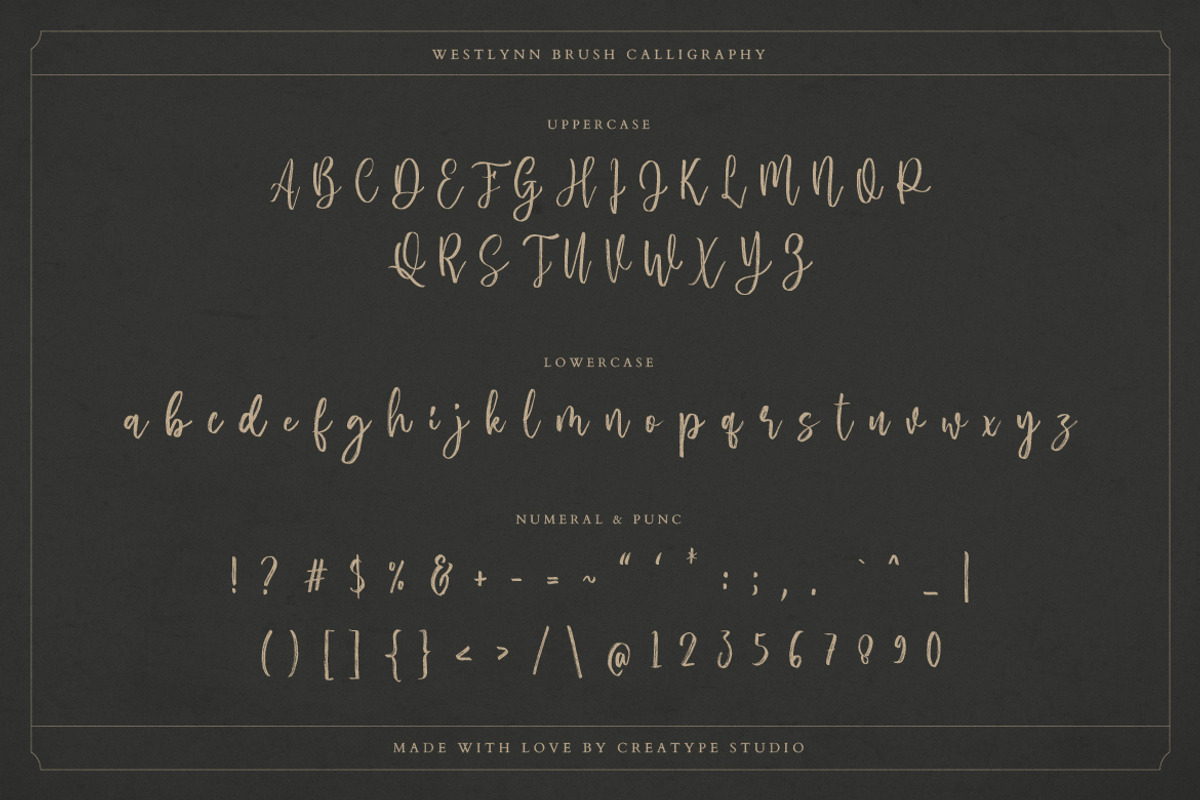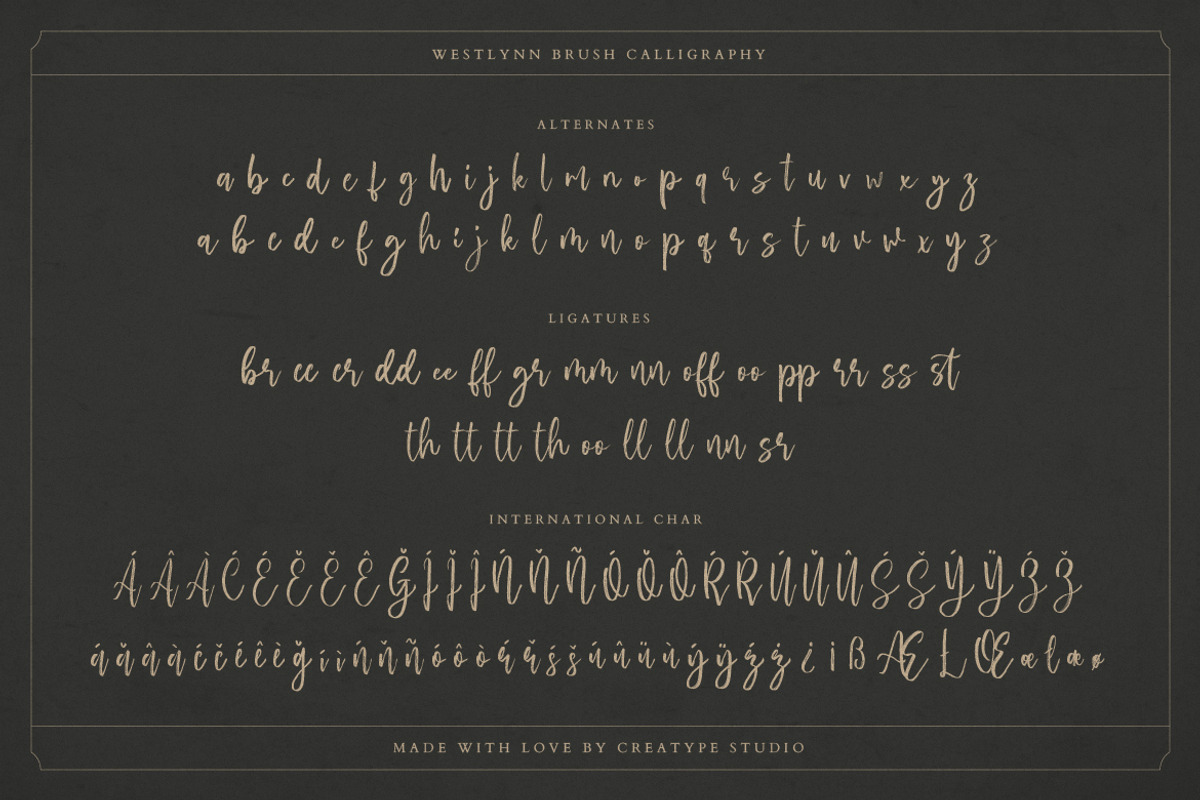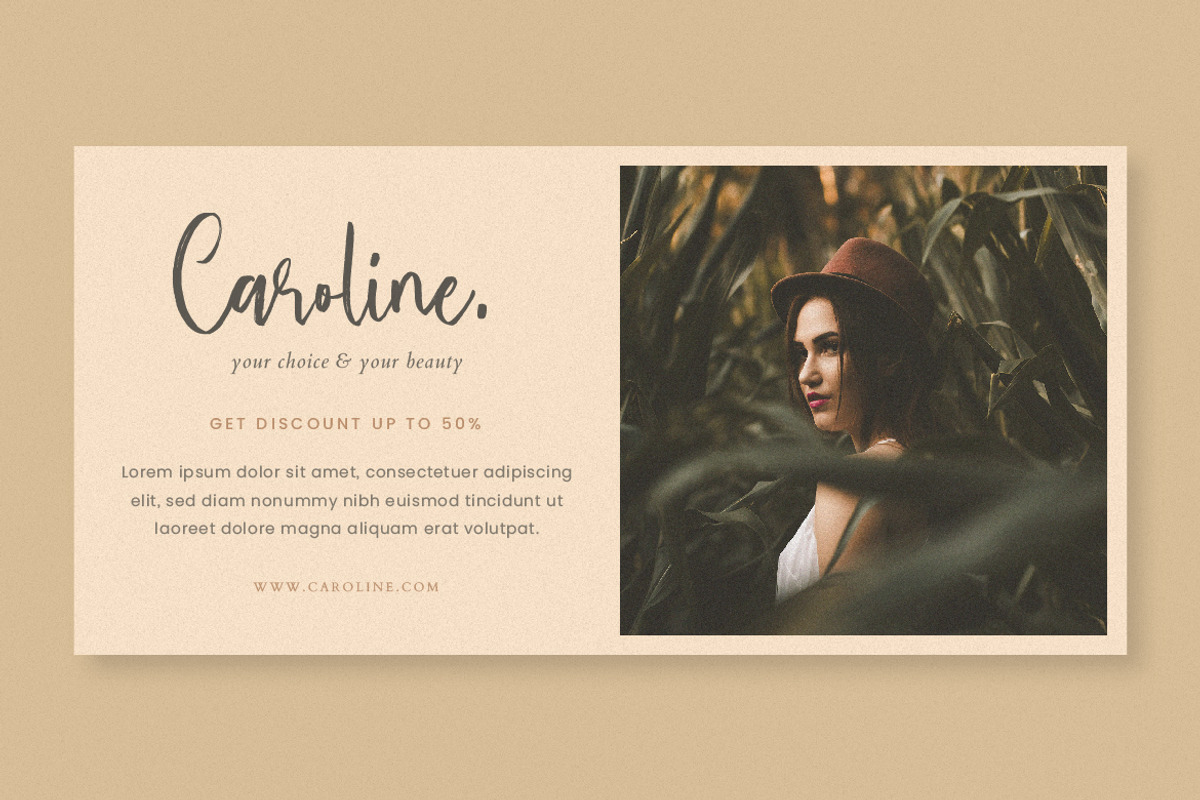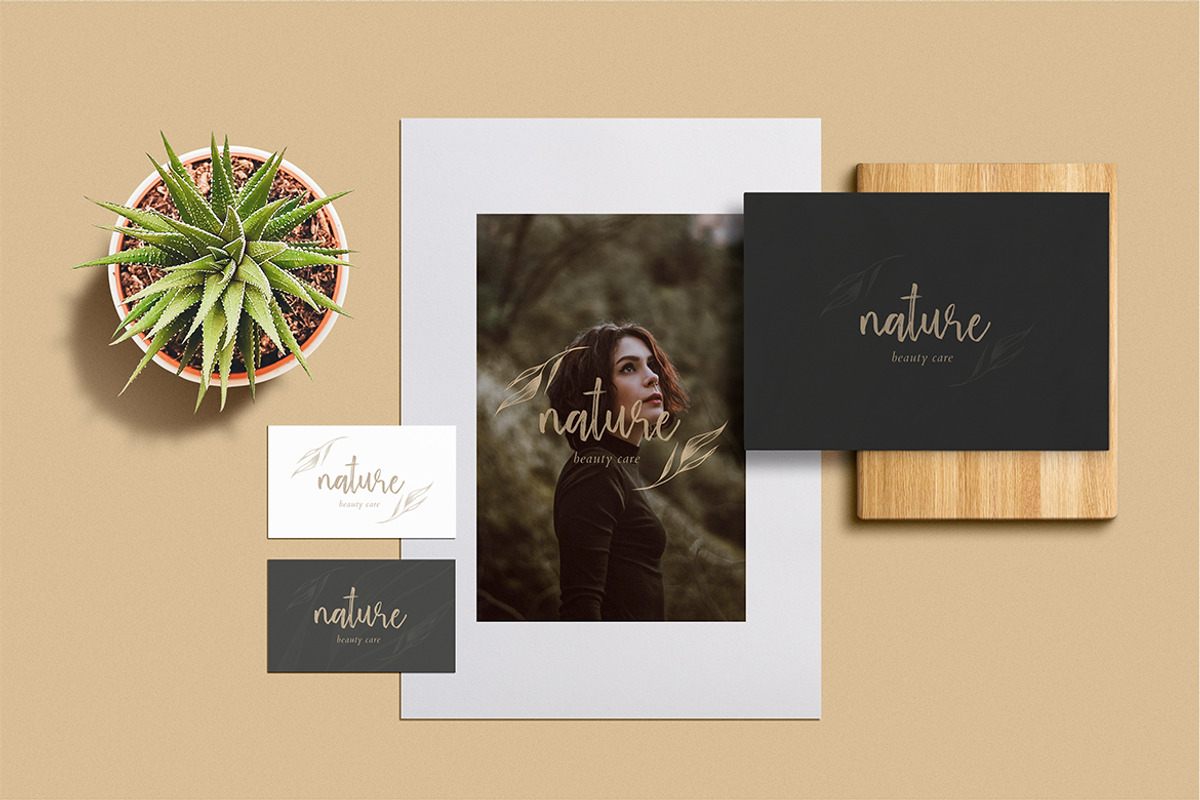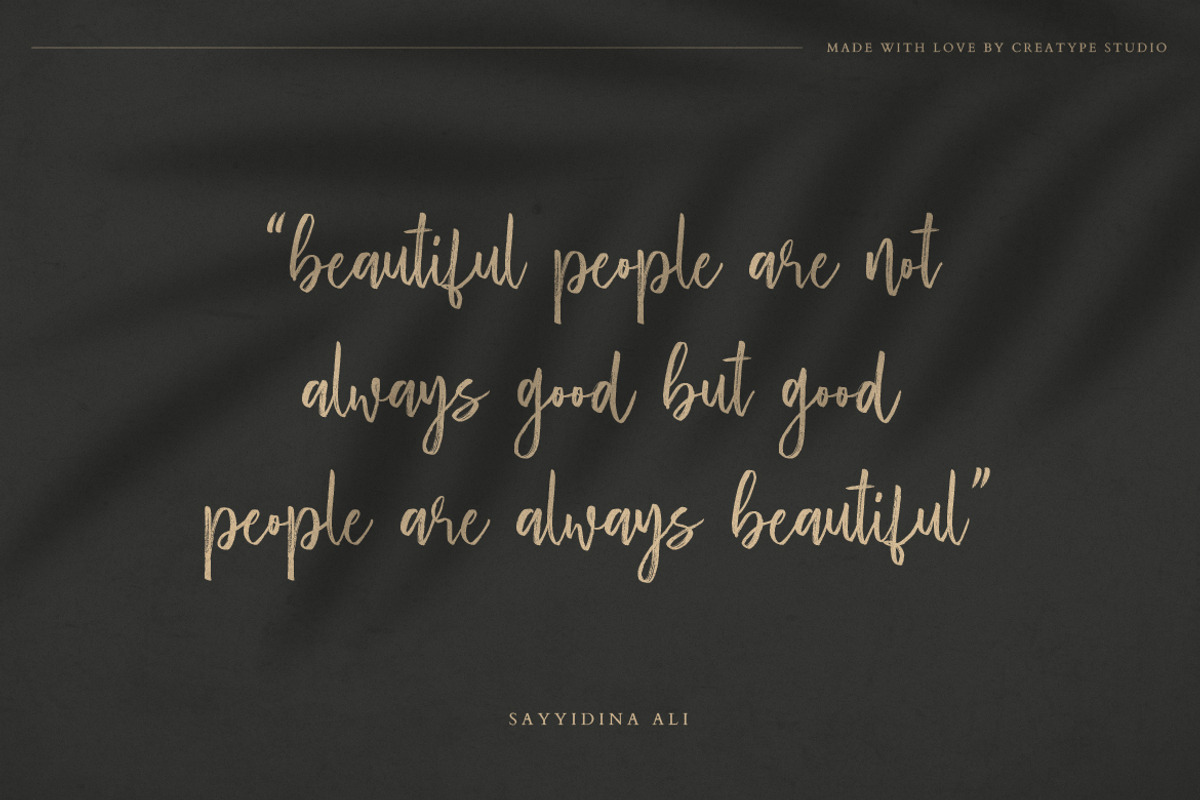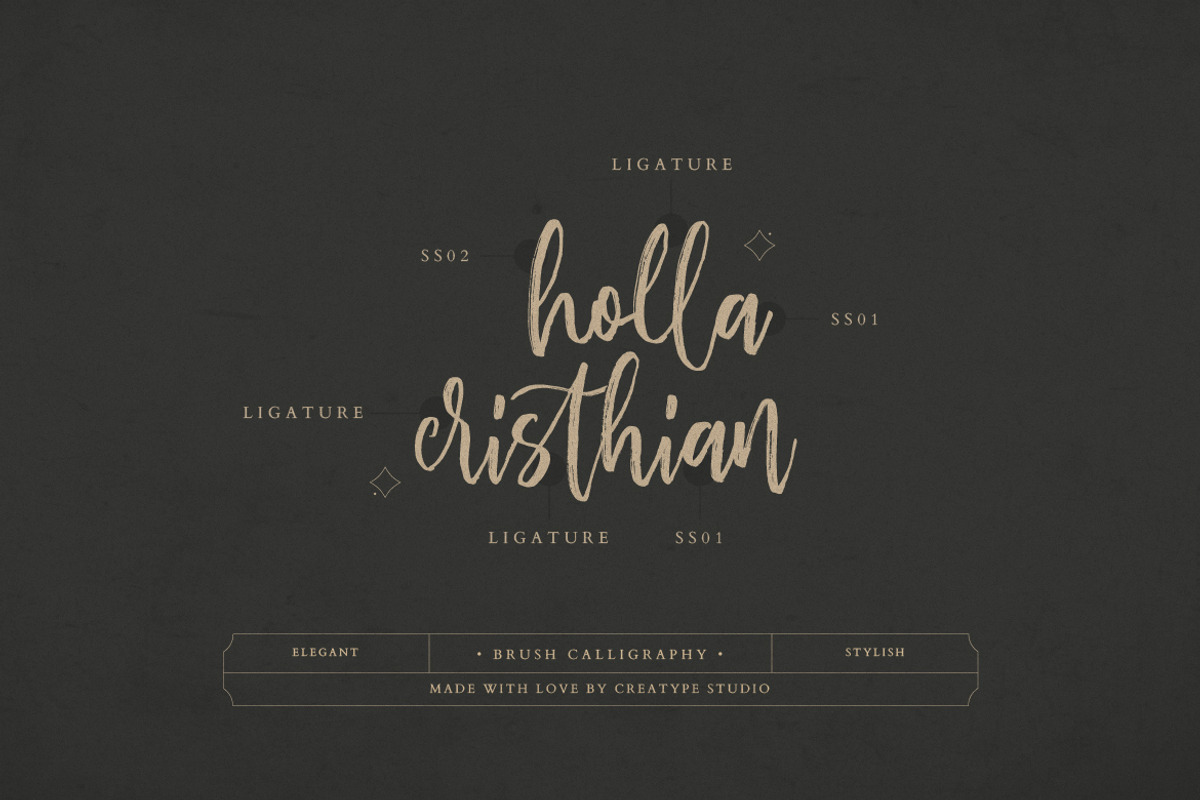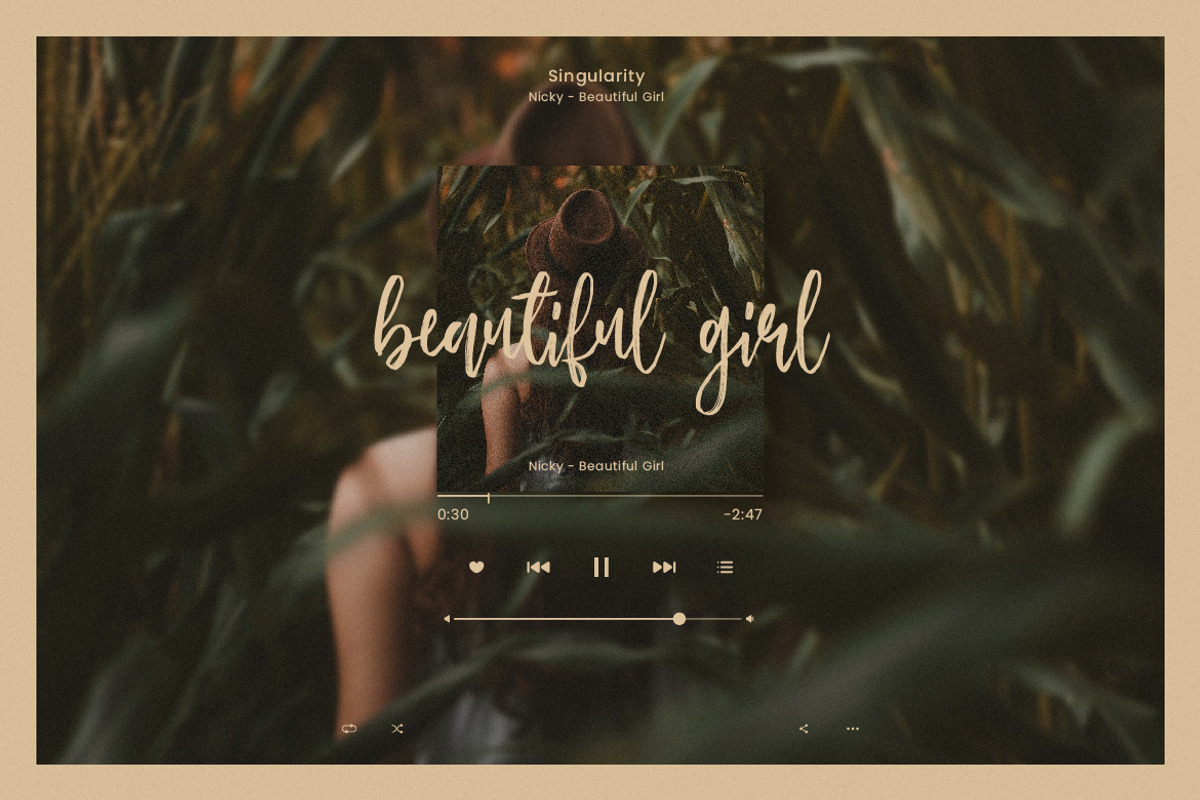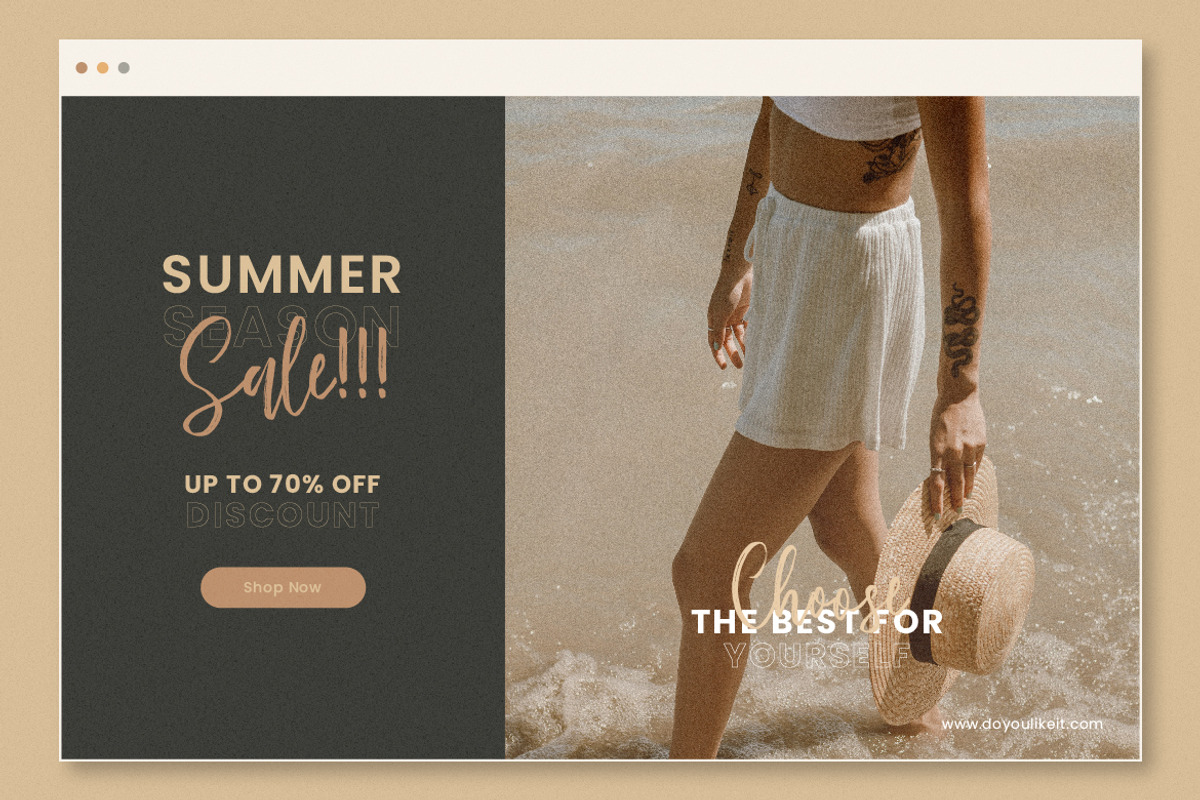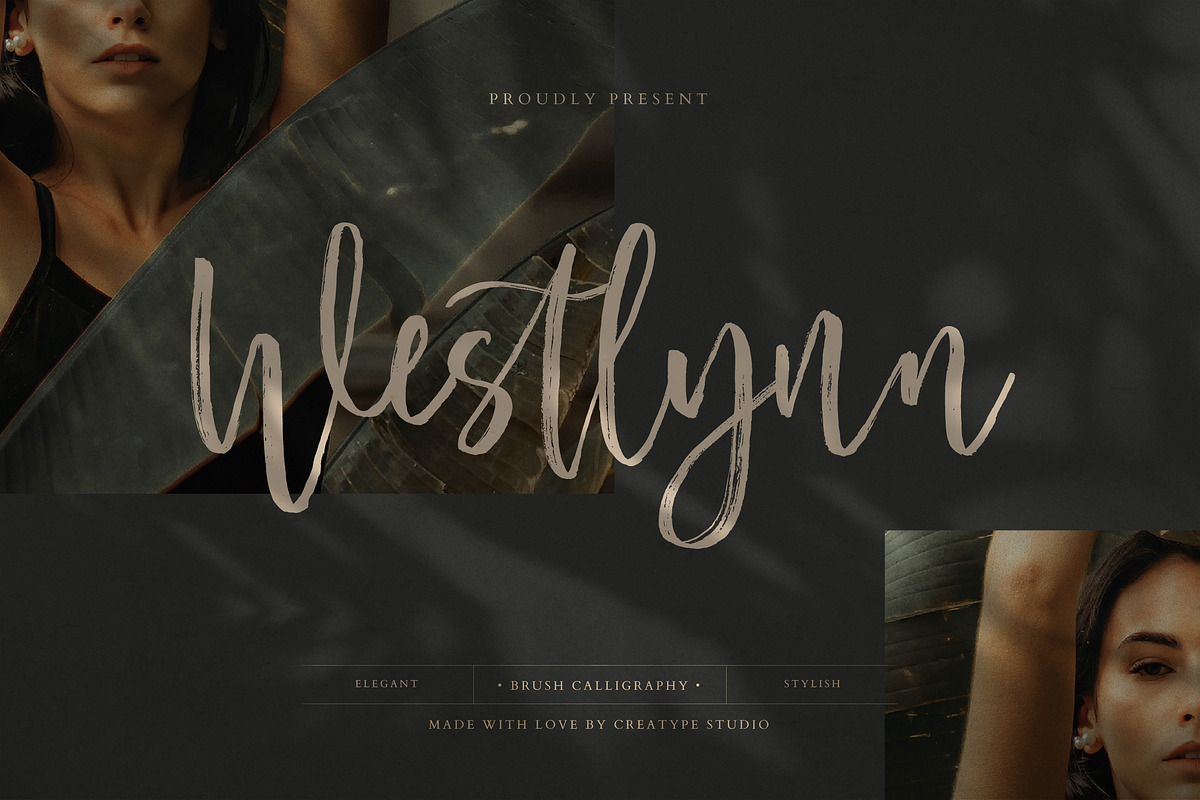
Westlynn Brush Calligraphy
Westlynn Brush Calligraphy typeface that gives your audience a feeling of feeling. This font will make your design look nicer, fun and of course more attractive.
Westlynn is perfect for branding projects, logo, wedding designs, social media posts, advertisements, product packaging, product designs, label, photography, watermark, invitation, stationery and any projects that need handwriting taste.
- Ligature & Alternate
- Fonts include multilingual support for; Afrikaans, Albanian, Czech, Danish, Dutch, English, Estonian, Finnish, French, German, Hungarian, Italian, Latvian, Lithuanian, Norwegian, Polish, Portuguese, Slovak, Slovenian, Spanish, Swedish.